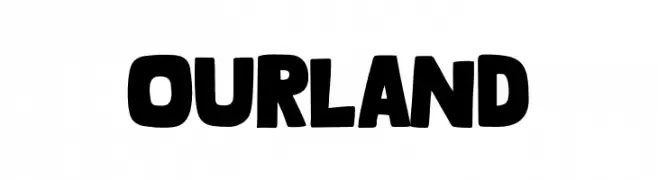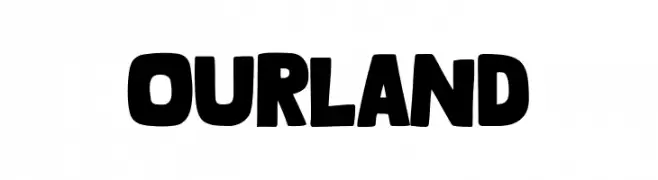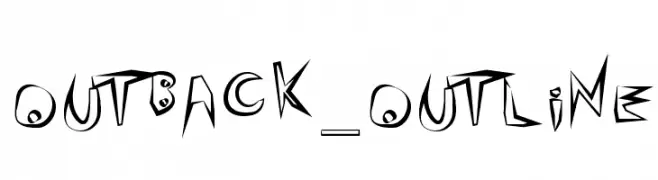
A bold, playful font with rounded, hand-drawn characters.
A bold, rounded font with a playful and friendly style.
A bold, rounded font with a playful, hand-drawn style.
A bold, dynamic font with sharp, angular edges and a playful, energetic feel.
A bold, angular, and playful outlined font with a dynamic, modern style.
A bold, hand-drawn font with outlined characters and a playful style.